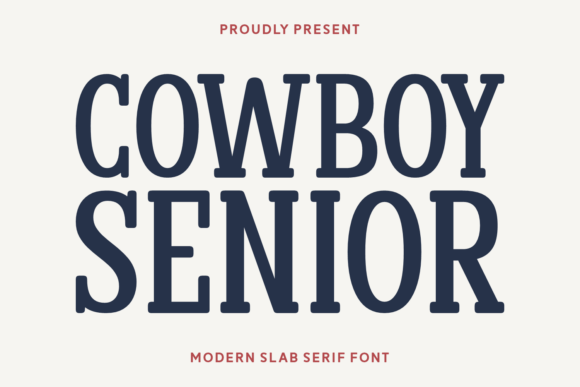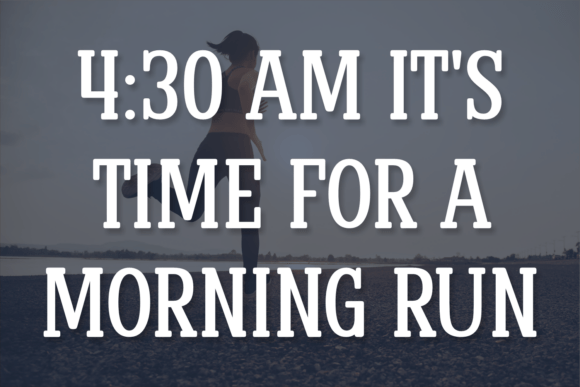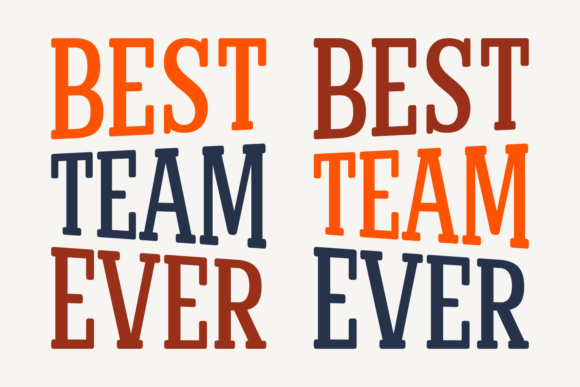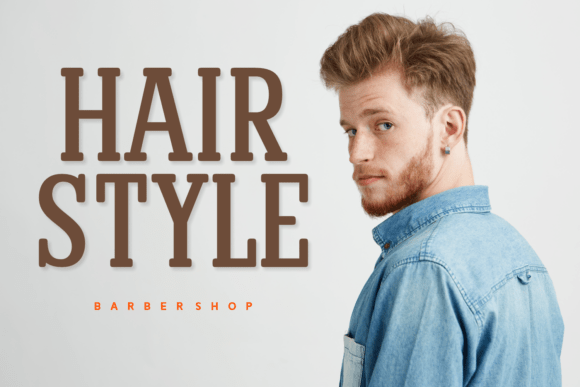
Cowboy Senior Font
About the Cowboy Senior Font
Add a touch of class to your work with the Cowboy Senior Font, a truly exceptional typeface. Immerse yourself in the striking allure of Cowboy Senior Slab Serif Bold Font. This condensed serif variety exhibits a strong masculine personality, perfect for impactful logo design, striking titles, or blockbuster movie typography. Stepping beyond the conventional, this standout black font lends a heavy modern appeal to your designs. With its innovative variable font weight, Cowboy Senior Slab Serif Bold Font provides a unique versatility, adapting fluidly to your creative visions. Experience the remarkable blend of rustic boldness and contemporary sophistication with this distinguished typeface. Elevate your design narrative with the commanding presence of Cowboy Senior Slab Serif Bold Font.
Cowboy Senior Font Usage Examples
Cowboy Senior Font Example